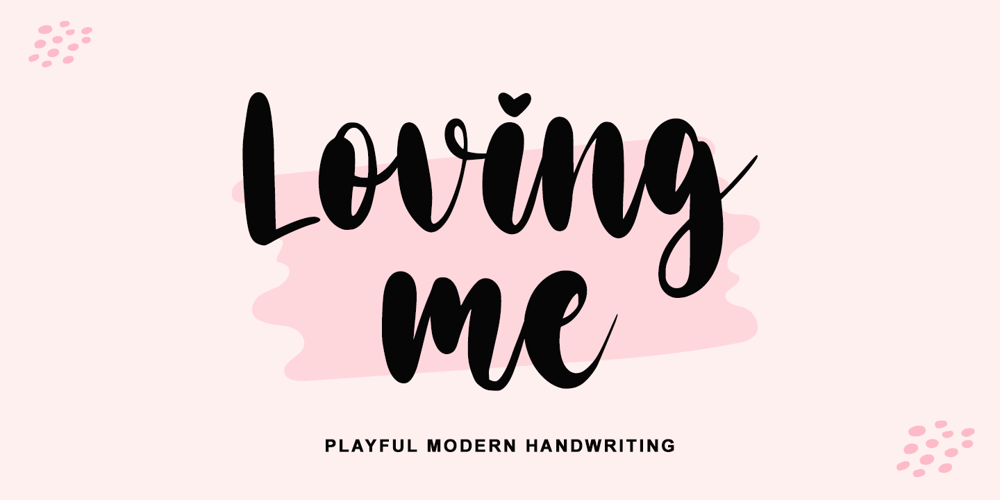
Loving me Font Family was designed by Thomas Aradea and published by Letterara. Loving me contains 2 styles and family package options. Loving me is a new, fresh, sweet, and quirky handmade font. It’s ideal for branding and decorate your projects. Loving me font has a classy, and modern look that can be used for logos, branding, invitations, poster, advertising, stationery, wedding designs, social media posts, and much more! It is PUA encoded which means you can access all of the glyphs and swashes with ease!